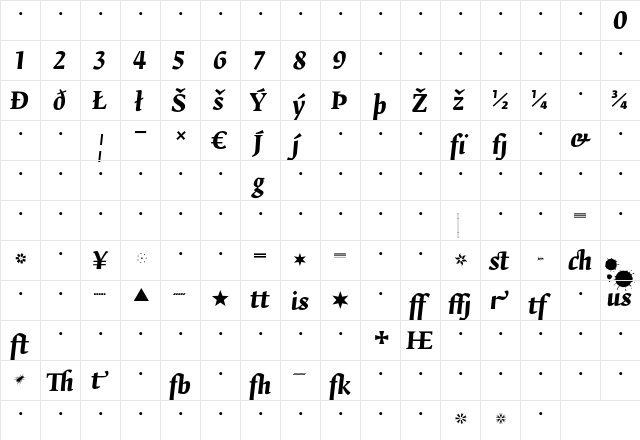
Fedra Serif B Bold Italic Font Preview
Design Context for Fedra Serif B Typeface
Fedra Serif B brings classic typographic sensibility to the table — its serifs and measured letterforms reflect centuries of print heritage. The dynamic lean of this cut emphasises speed and emphasis in any layout. The heavy weight commands attention and anchors typographic hierarchies.